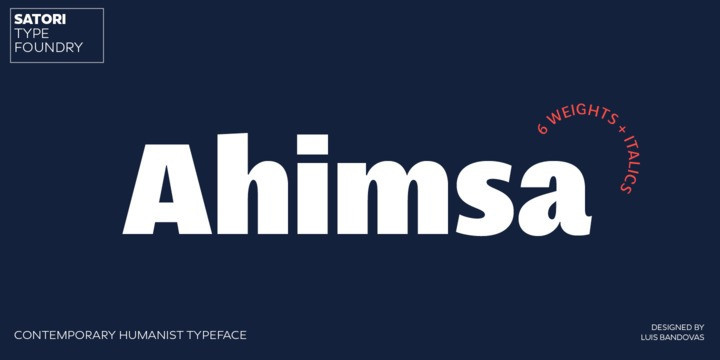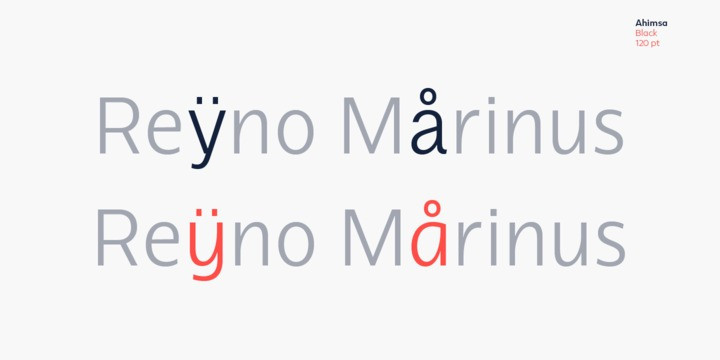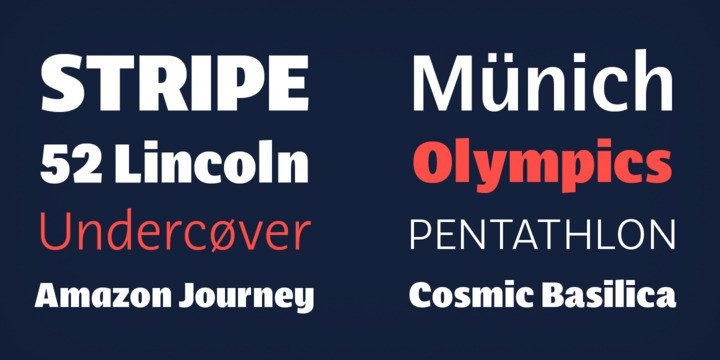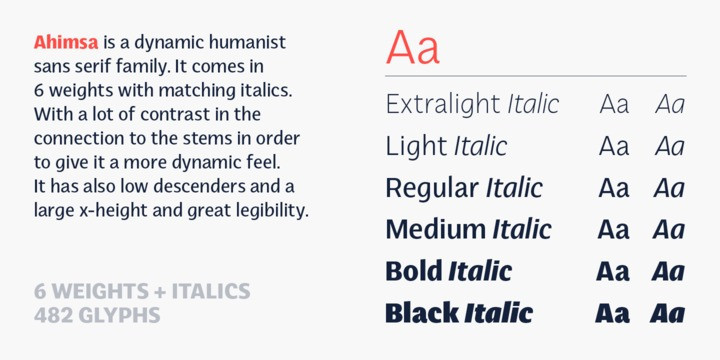
Ahimsa Sans Font Family
Thank you for looking Ahimsa Font. It’s a highly versatile, modern, sans serif typeface with 6 weights. You can use it for almost any kind of design template as it works great for both headlines and large chunks of text. Ahimsa Sans Serif is a dynamic humanist sans serif family. It comes in 6 weights with matching italics. It contains a lot of contrast in the connection to the stems in order to give it a more dynamic feel, and also has low descenders and a large x-height and great legibility.